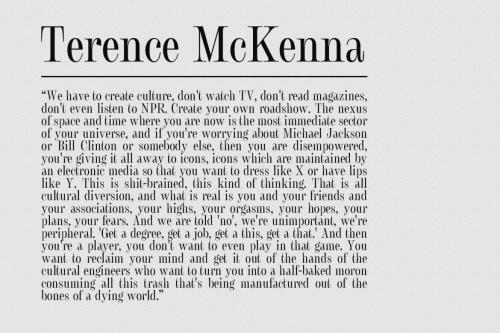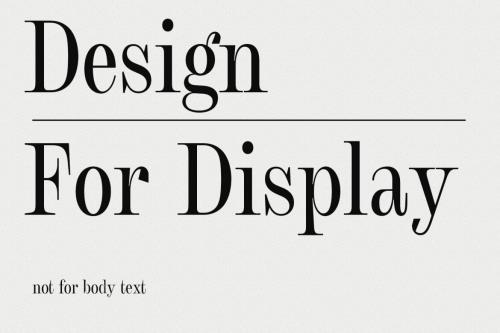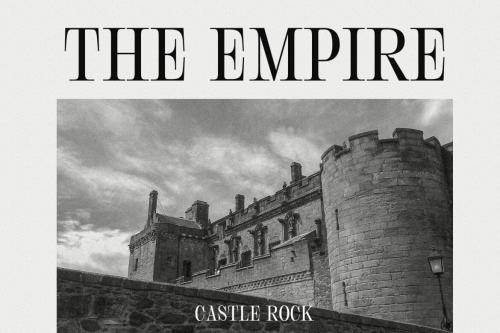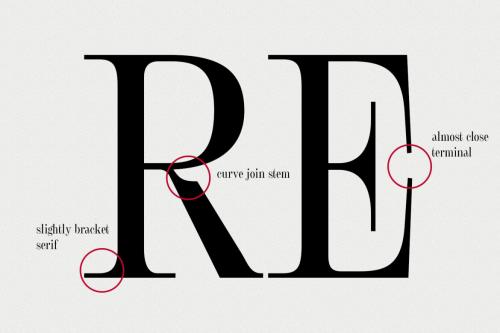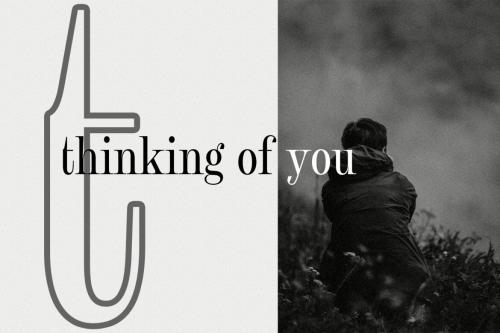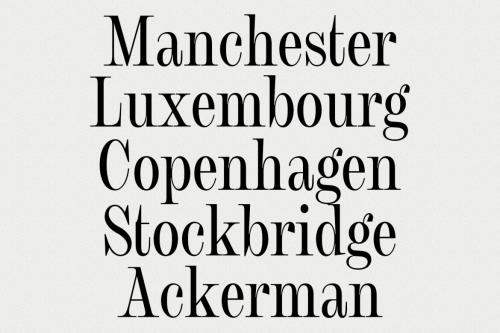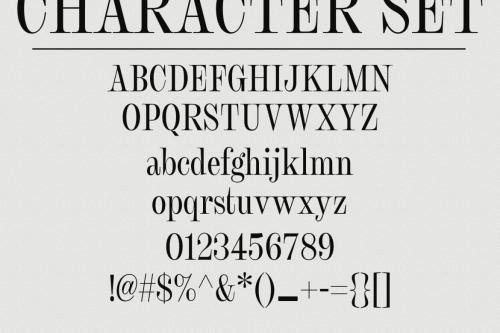
Rasteira is an elegant classical display serif font. Regular contrast stroke, fun character with a bit of ligatures and alternates. To give you an extra creative work. Rasteira font support multilingual more than 100+ language. This font is good for logo design, Social media, Movie Titles, Books Titles, a short text even a long text letter and good for your secondary text font with script or serif. Make a stunning work with Rasteira font.